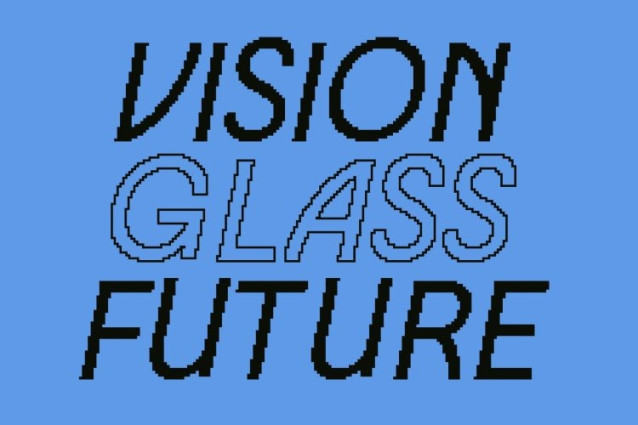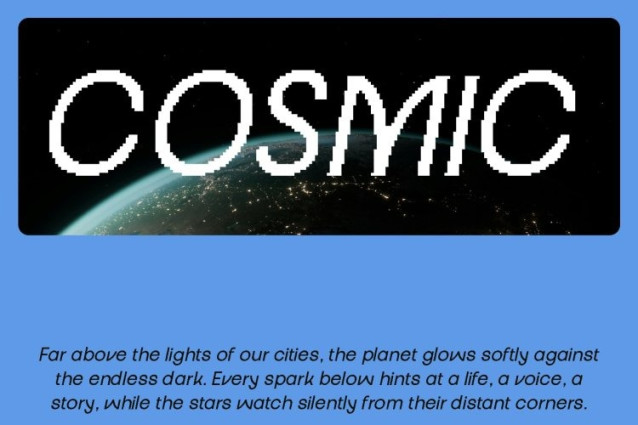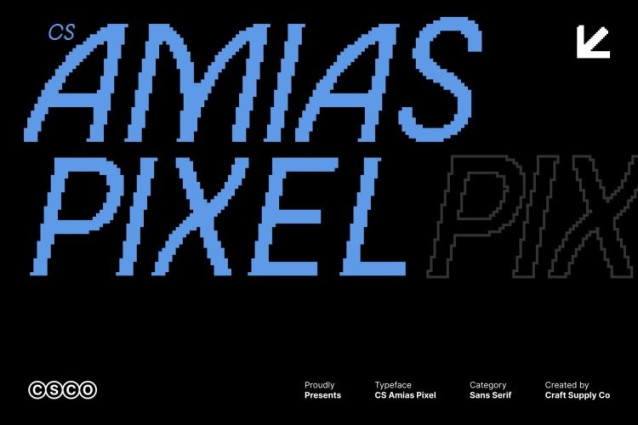
CS Amias Pixel Font
CS Amias Pixel Font This takes the clean, modern geometry of its original design and reimagines it in crisp 8-bit, retro-inspired pixel form. Each letter preserves the minimalist elegance and balanced proportions of the original sans serif, now translated into a digital, pixel-perfect aesthetic. The result is a font that feels both contemporary and nostalgically retro, ideal for digital displays, gaming interfaces, and tech-inspired creative projects.
Minimalist Design Meets Retro Digital Flair
The subtle geometric structure of this font is maintained in a blocky, pixelated form, giving it a sleek and orderly appearance while adding playful retro energy. Its clean lines and consistent pixel grid create clarity and legibility, making it perfect for headlines, logos, and digital interfaces that require a modern-yet-retro vibe.
Balanced and Versatile Pixel Typography
With precise spacing and even pixel weight, this font ensures readability and visual harmony across a variety of applications. It merges the minimalism of modern design with the nostalgic charm of classic 8-bit typography, providing a versatile tool for designers seeking clean, bold, and digital-forward expression.
Ideal for Digital, Branding, and Retro-Inspired Projects
This font works beautifully for tech branding, web design, game titles, social media graphics, and editorial layouts. Its combination of modern geometric clarity and pixelated retro character delivers a contemporary, digital-friendly look that is stylish, memorable, and visually striking.